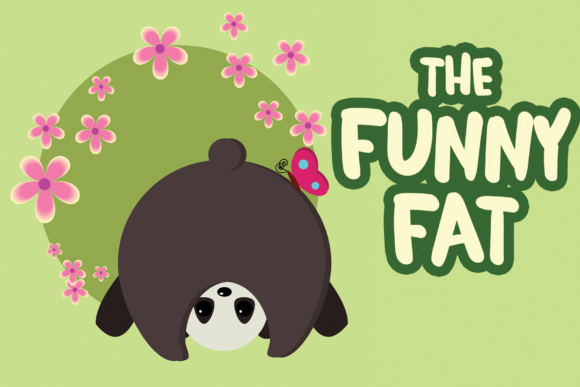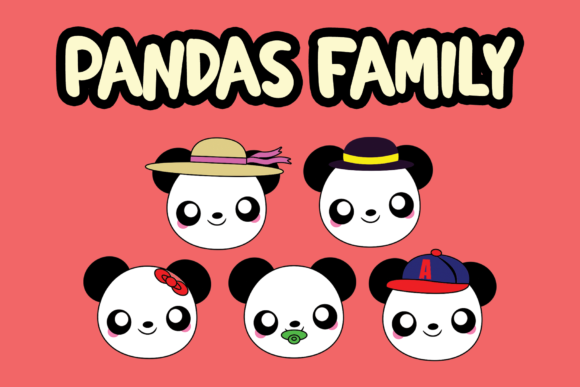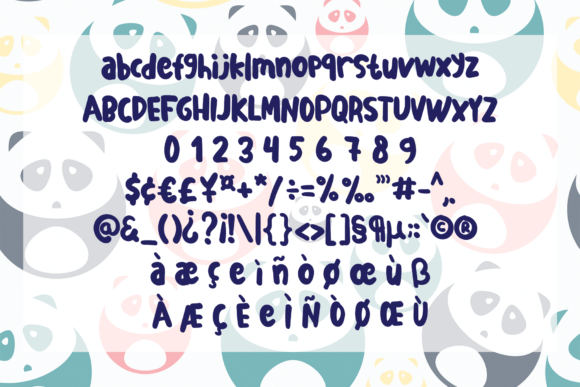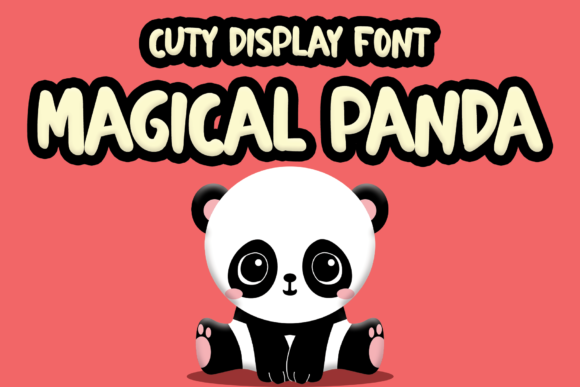
Introduction to Magical Panda Font
Magical Panda is a cute & friendly display font.
Get inspired by its incredibly youthful feel Add this chunky lettered font to your designs and notice how it makes them come alive.
Key Features of Magical Panda Font
Why Choose Magical Panda Font?